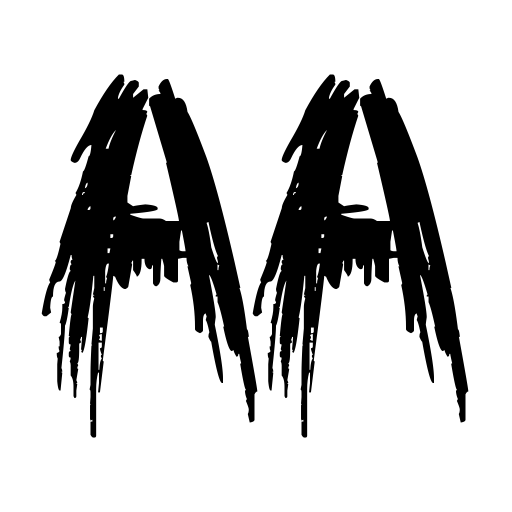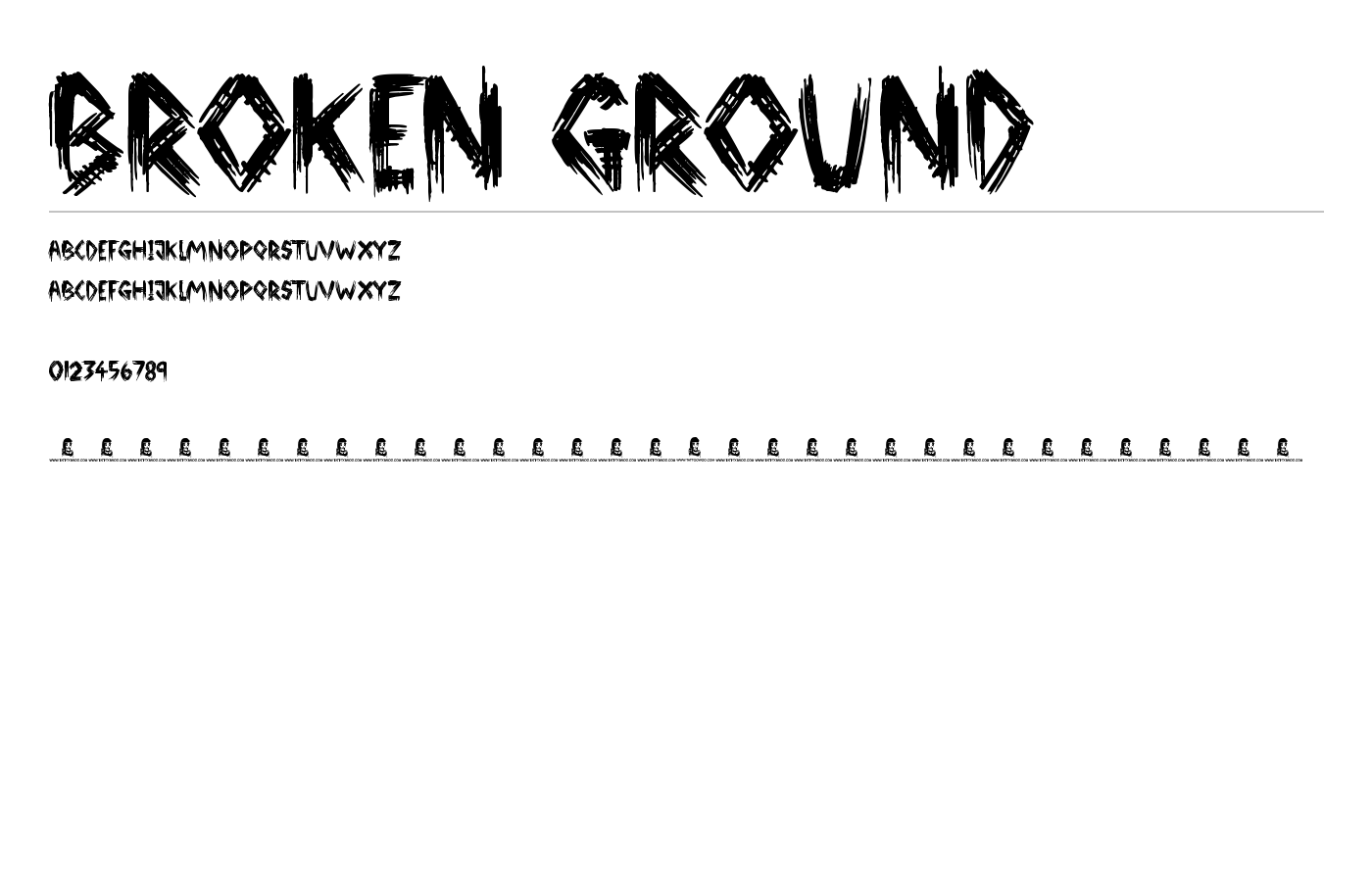
Broken Ground is a bold, distressed sans serif font with irregular, sharp strokes that create a rough, hand-drawn appearance. Its tall, narrow letterforms and high contrast between thick and thin lines give it an edgy, dynamic feel, making it ideal for designs that need a raw, urban, or grunge aesthetic. This font works well for posters, logos, and creative projects looking to convey energy and rebellion.
Broken Ground Font
About Broken Ground Font
| Font family | Broken Ground Font |
| Designer | Jonathan Stephen Harris |